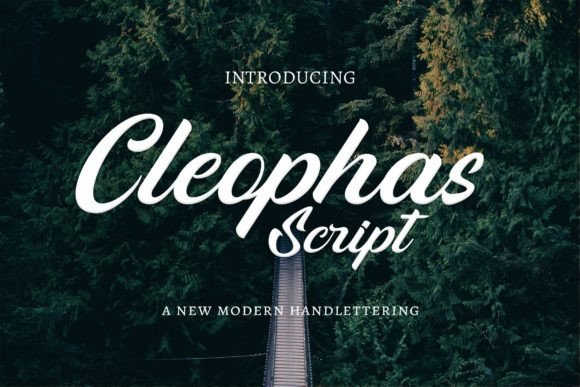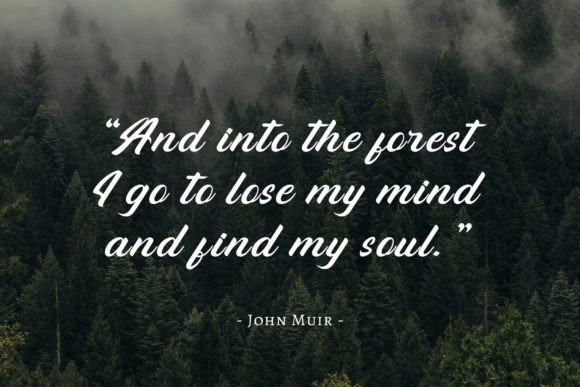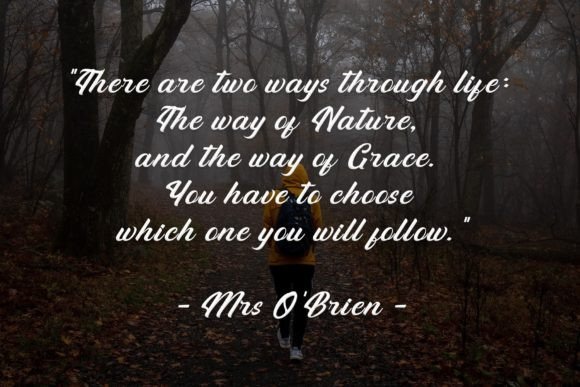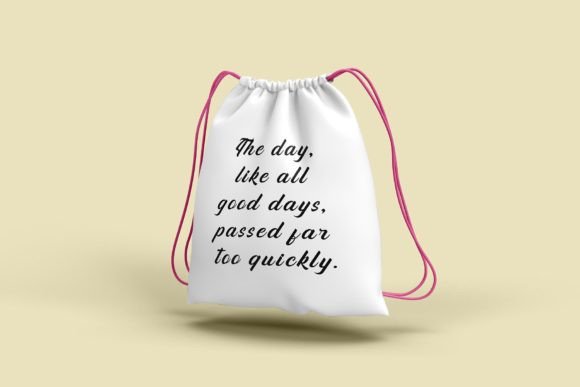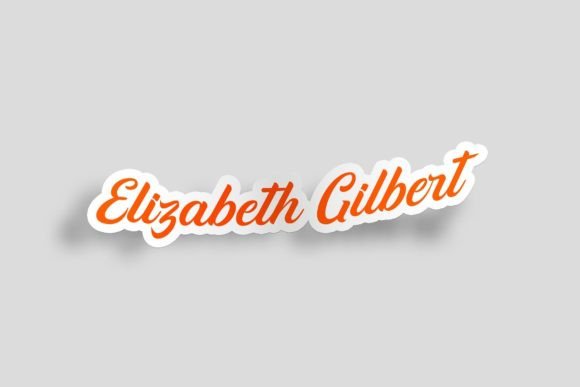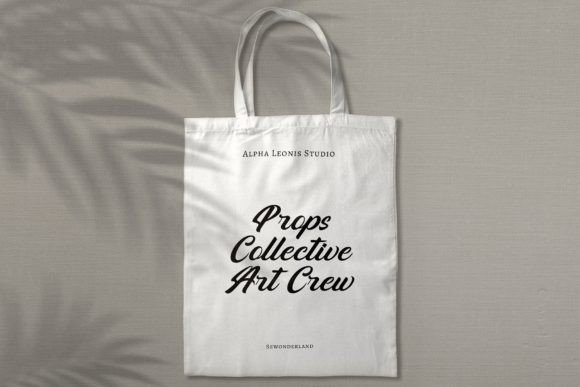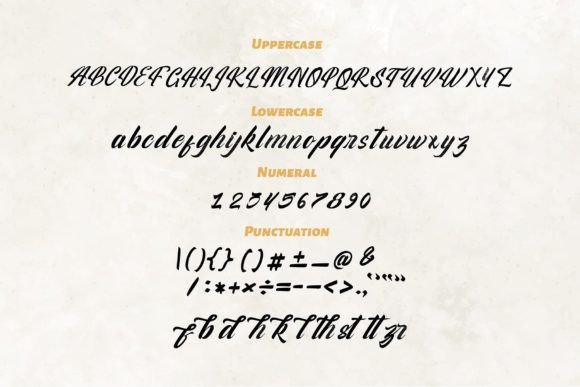
Cleophas Font
About Cleophas Font
Introducing Cleophas – Modern Script Font, a contemporary script handwritten font designed to infuse your designs with elegance, simplicity, natural beauty, and a modern touch. Whether you’re working on head titles, printed quotes, greeting cards, invitations, weddings, events, or any other creative project, Cleophas was meticulously crafted to add a sophisticated and stylish flair to your designs.
Cleophas stands out with its seamless blend of modernity and natural handwriting, making it a versatile choice for various applications. Its flowing characters convey a sense of effortless beauty, perfect for adding a touch of sophistication to your designs. The font’s elegant strokes and gentle curves make it ideal for projects that require a balance of simplicity and grace.
This font is particularly well-suited for head titles, where it captures attention with its modern script style. Its refined appearance makes it an excellent choice for printed quotes, enhancing the impact of the text and creating a visual focal point. Cleophas adds a touch of charm to greeting cards, making heartfelt messages even more special, while invitations and wedding materials acquire a timeless elegance when adorned with this font.
The versatility of Cleophas extends to various events and creative projects, allowing you to experiment with its modern script style in different contexts. Its natural flow and contemporary aesthetic ensure that your designs exude a sense of sophistication and modernity, capturing the essence of your vision.
Incorporating Cleophas into your designs provides a unique opportunity to elevate your creative work. Its elegance, simplicity, and natural beauty make it an essential tool for designers seeking to add a touch of modern sophistication to their projects. Let Cleophas be the key to transforming your designs, enhancing their visual appeal, and leaving a lasting impression on your audience.